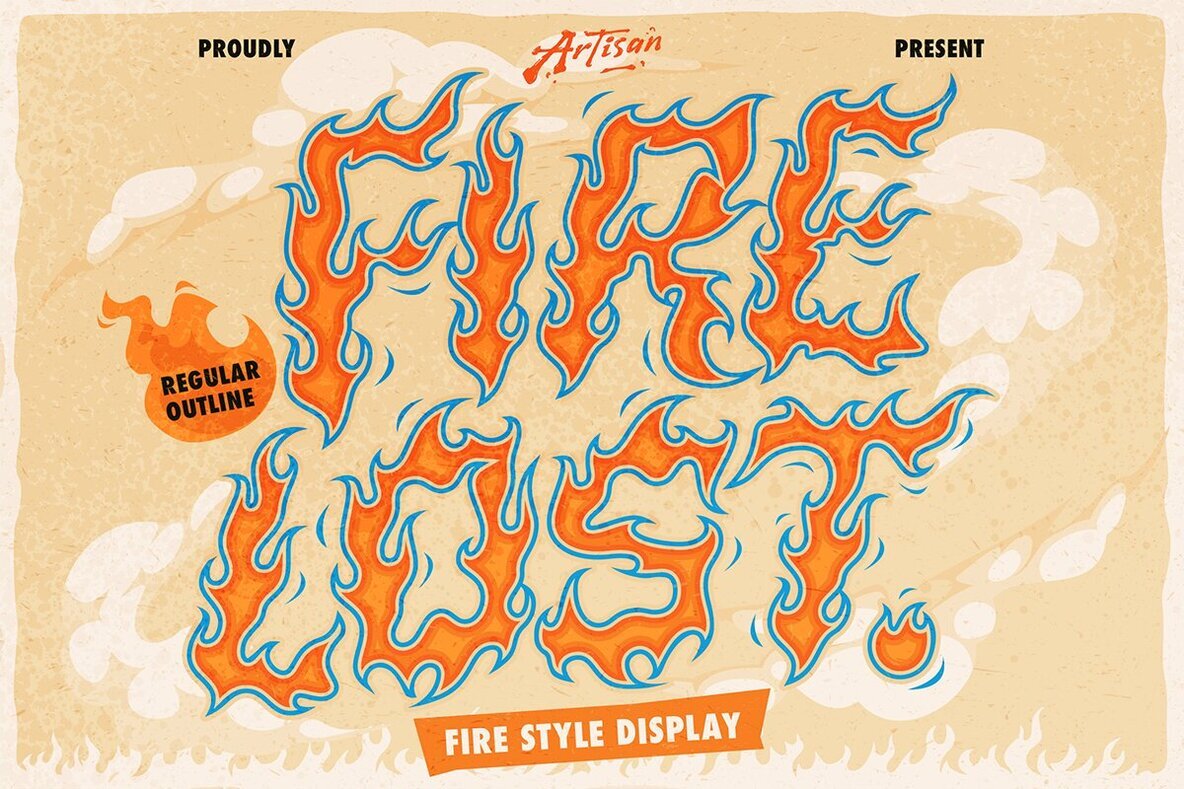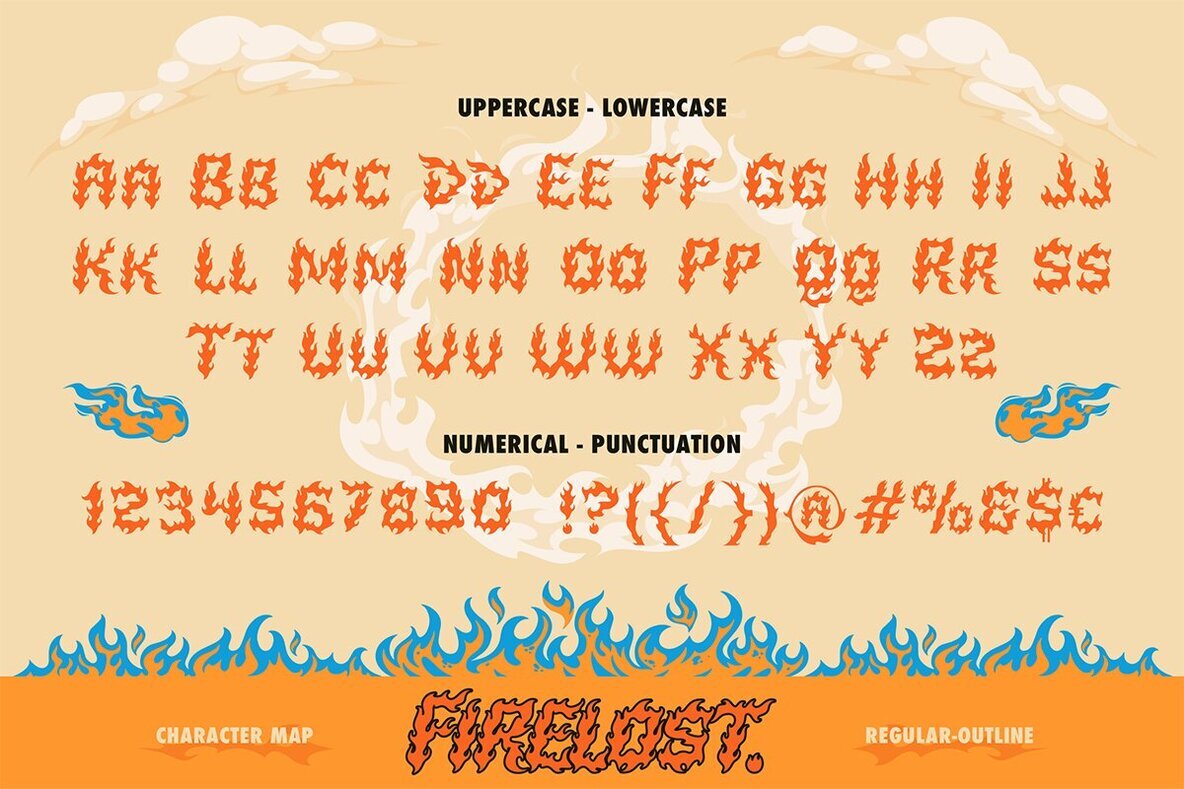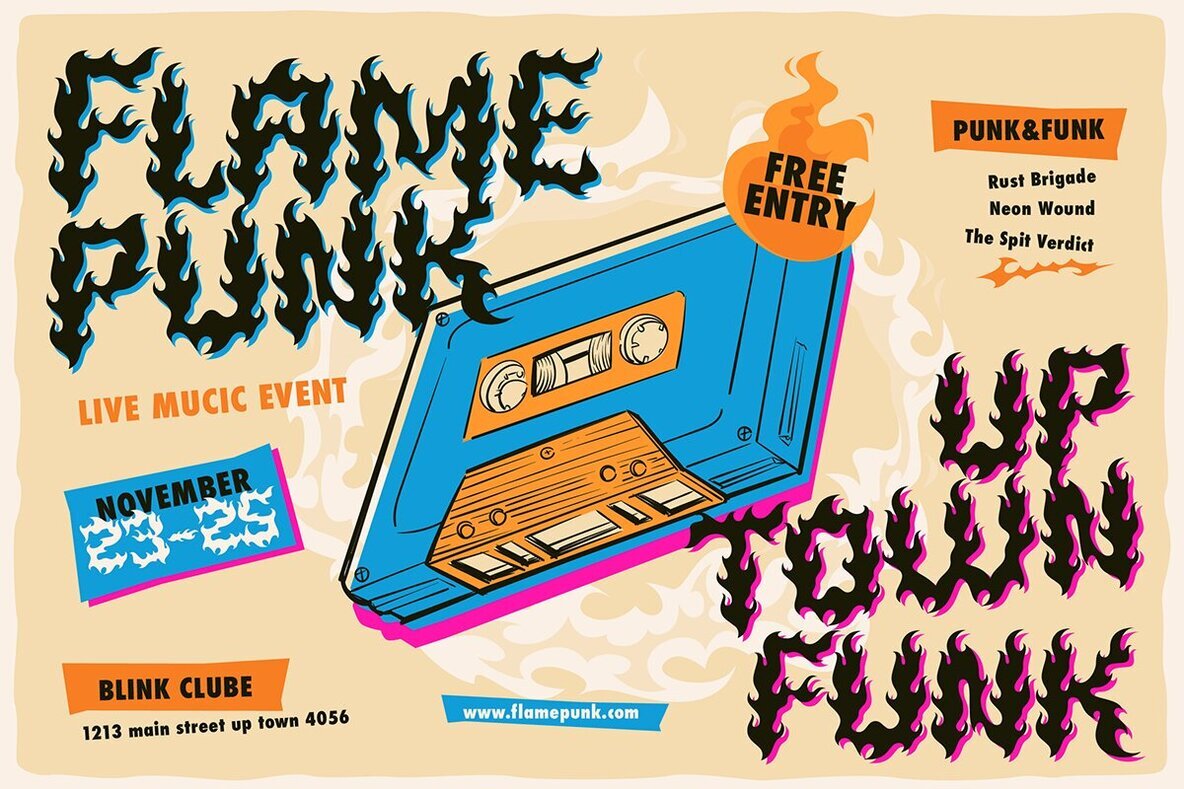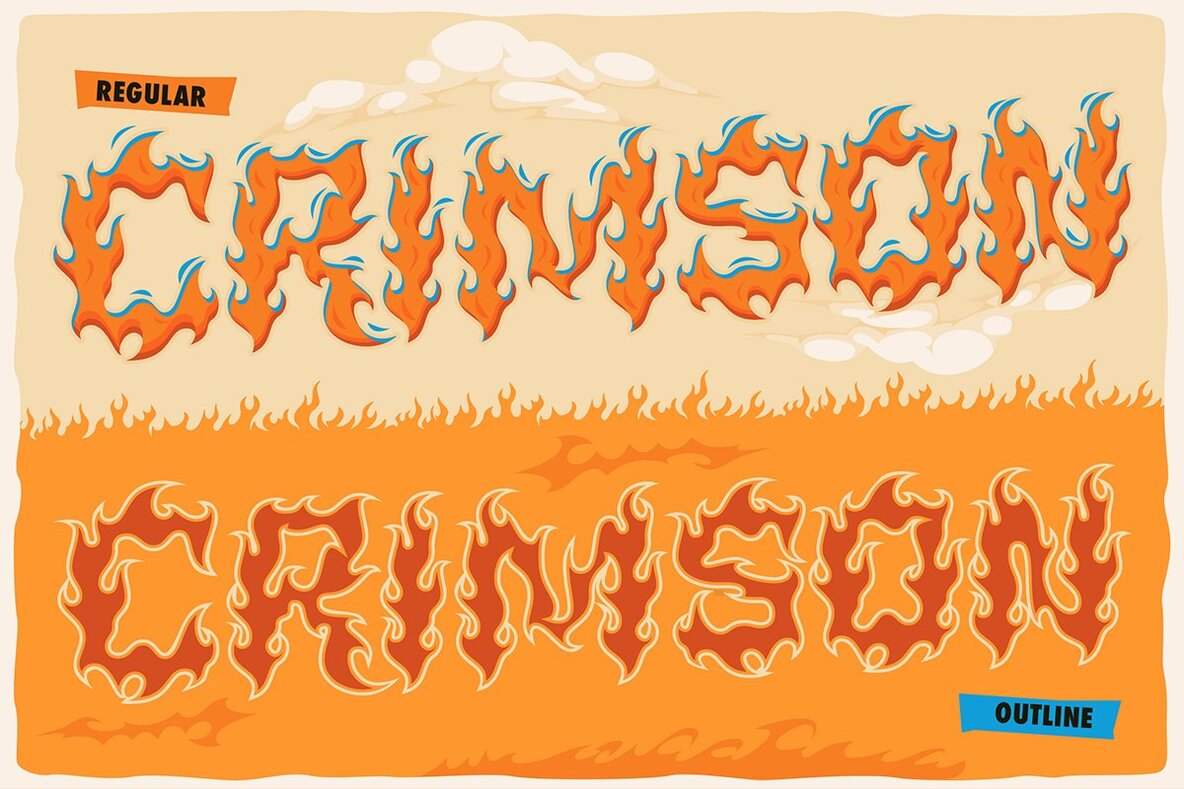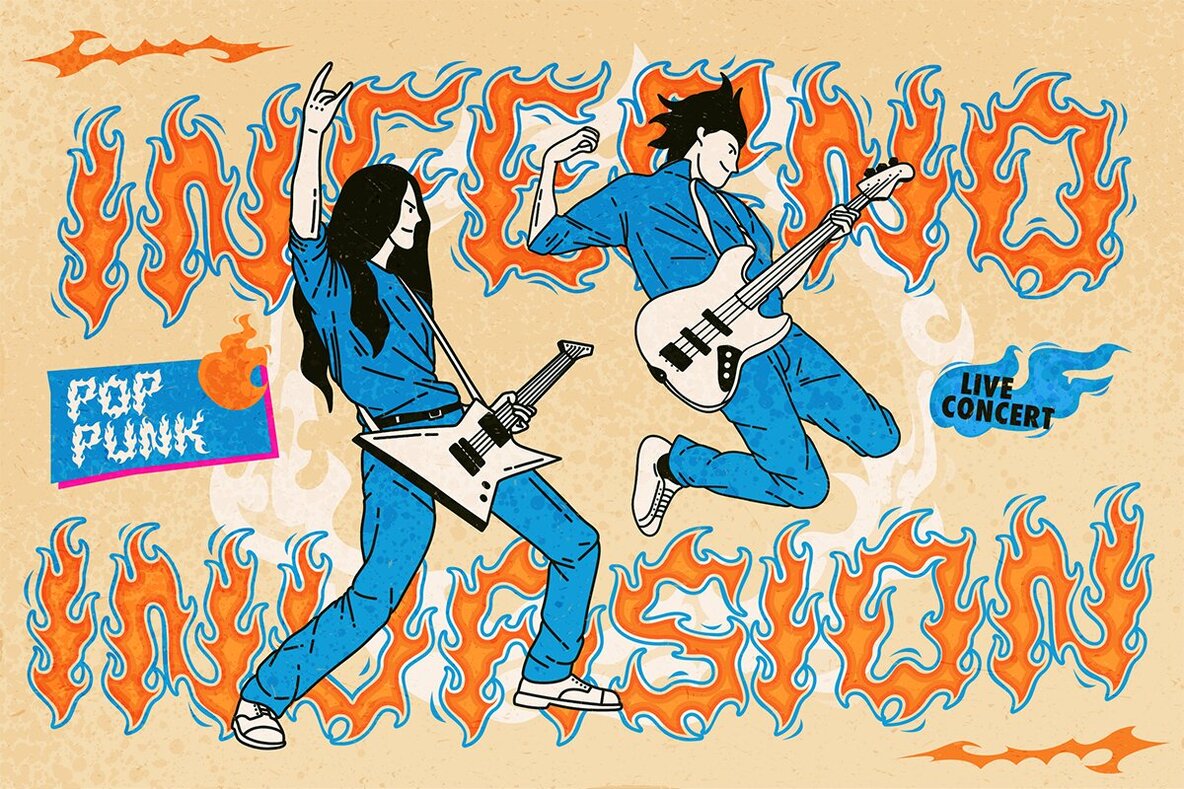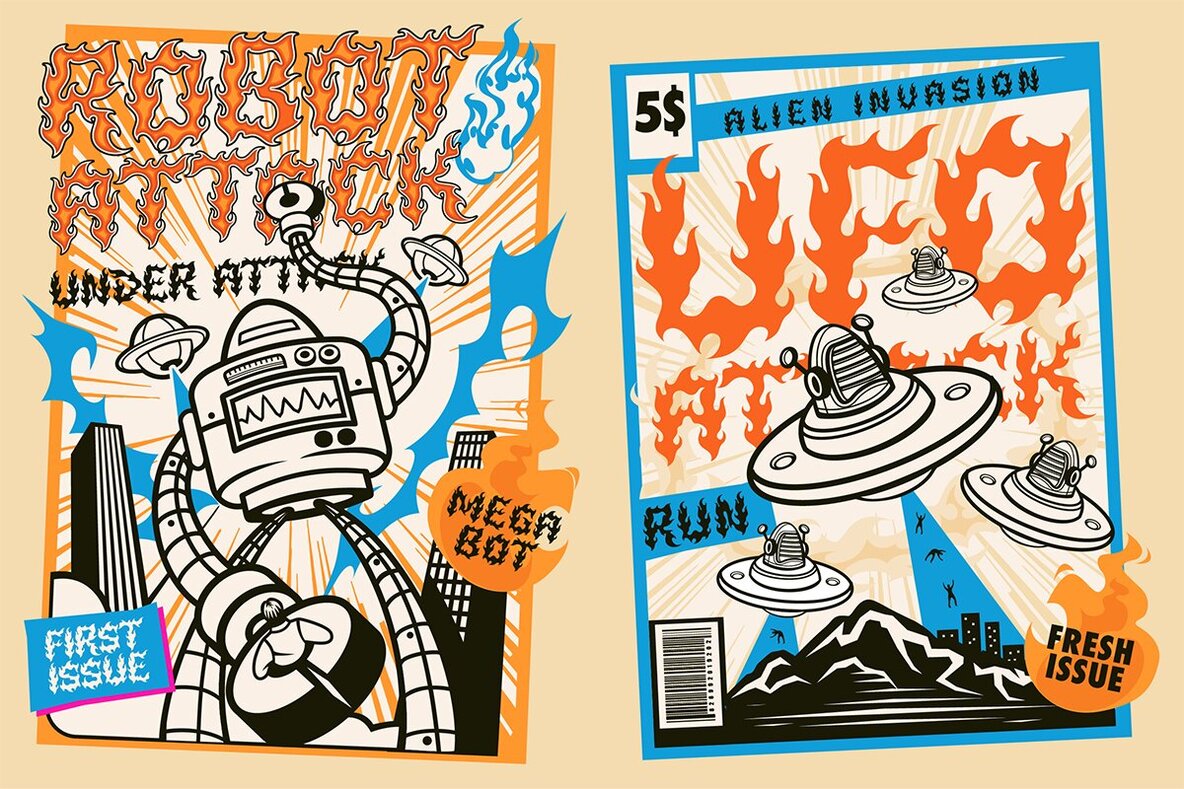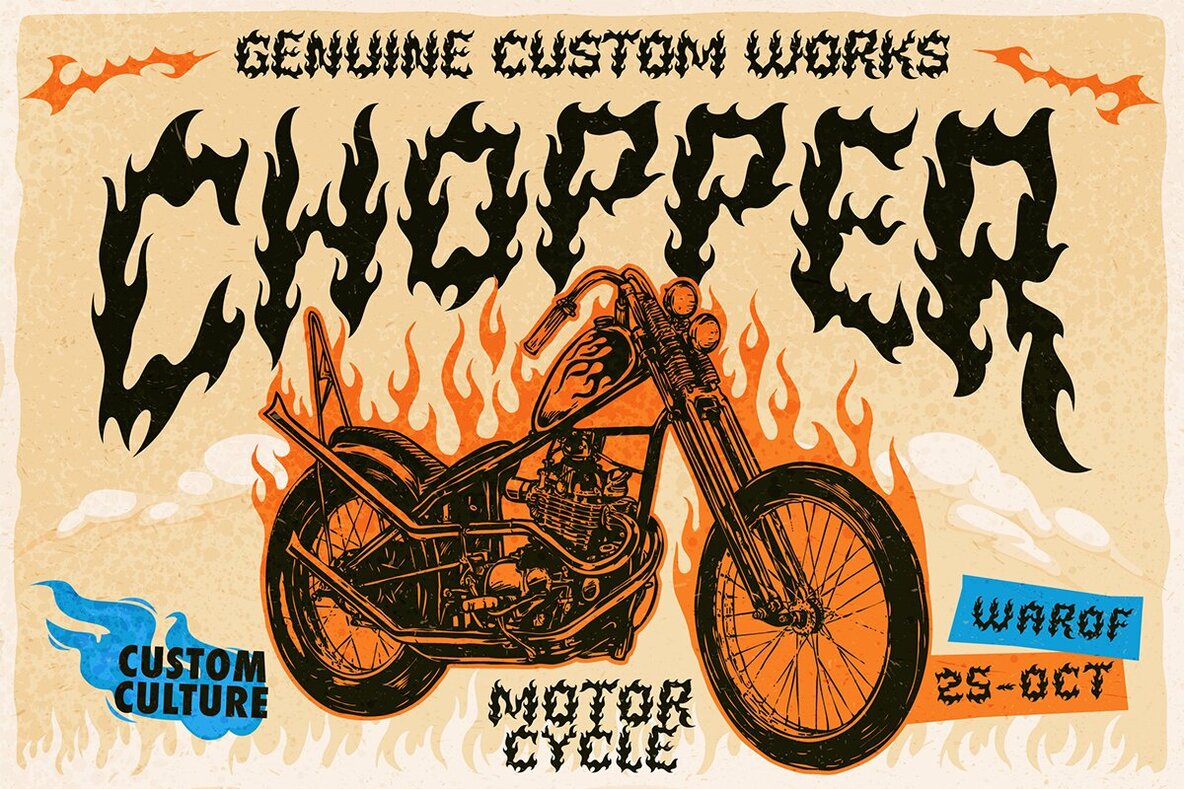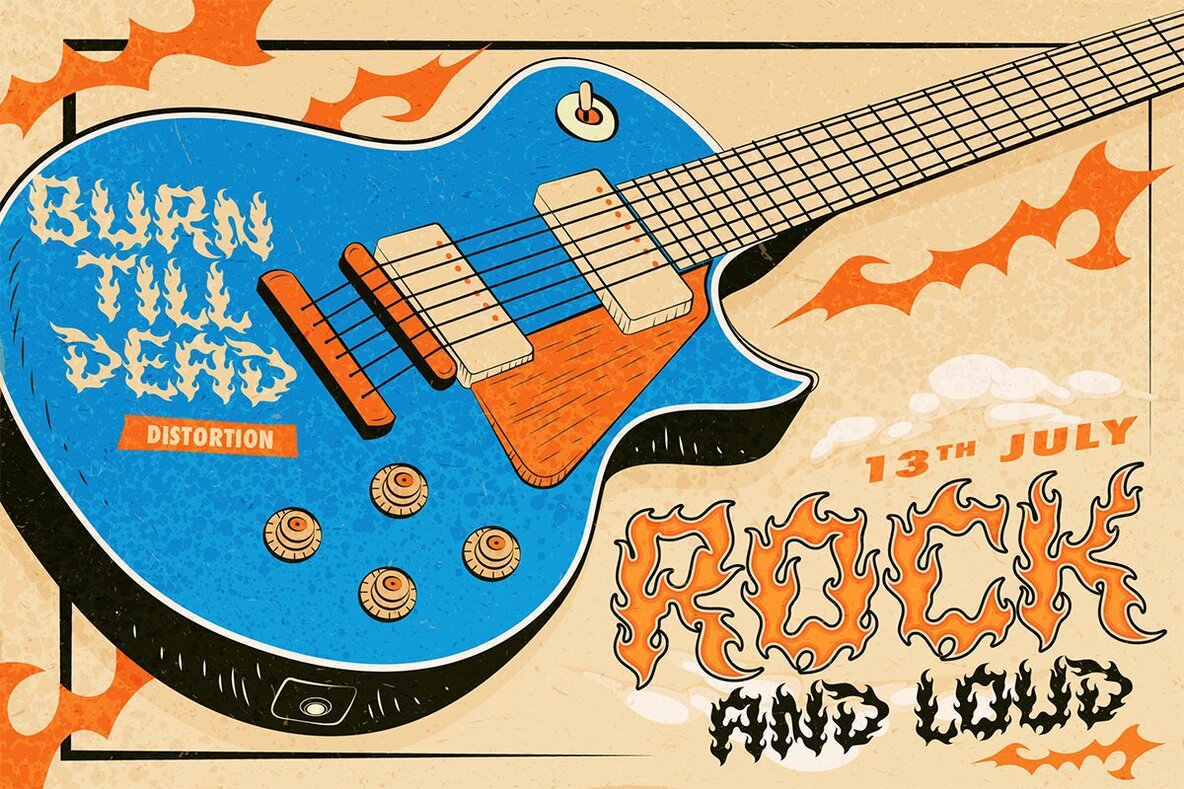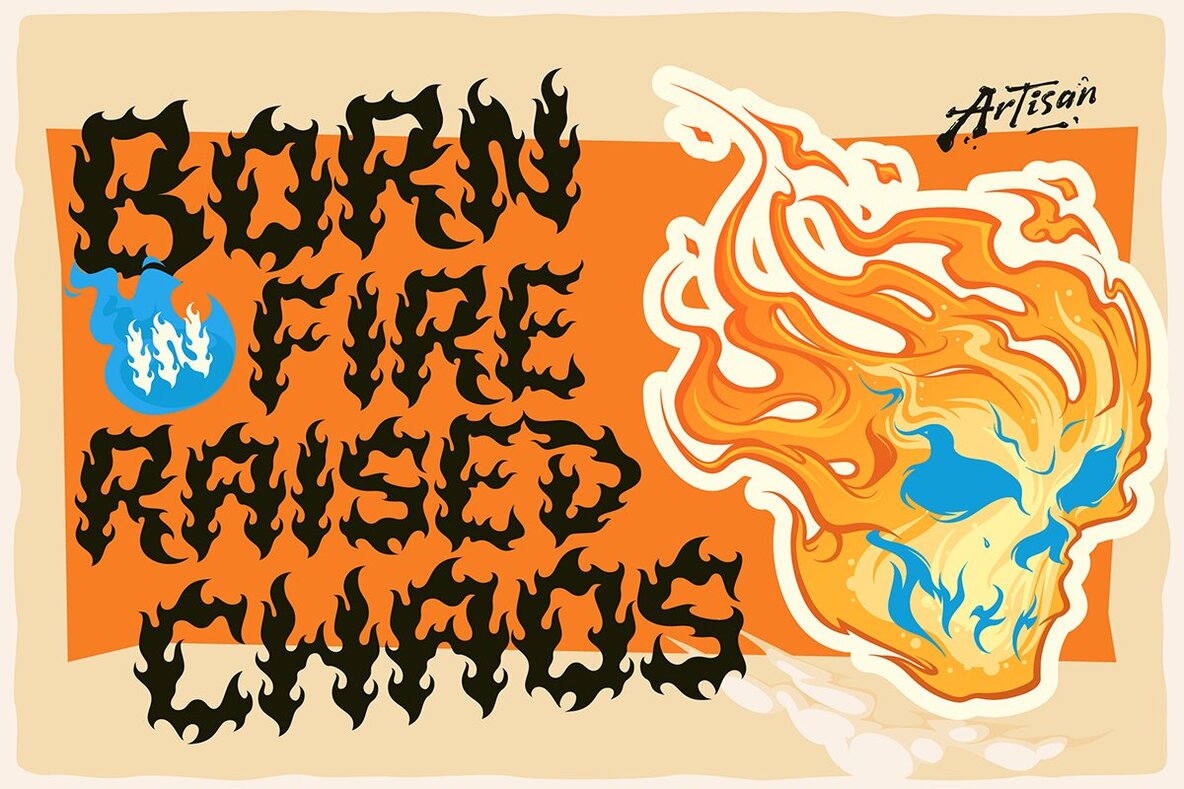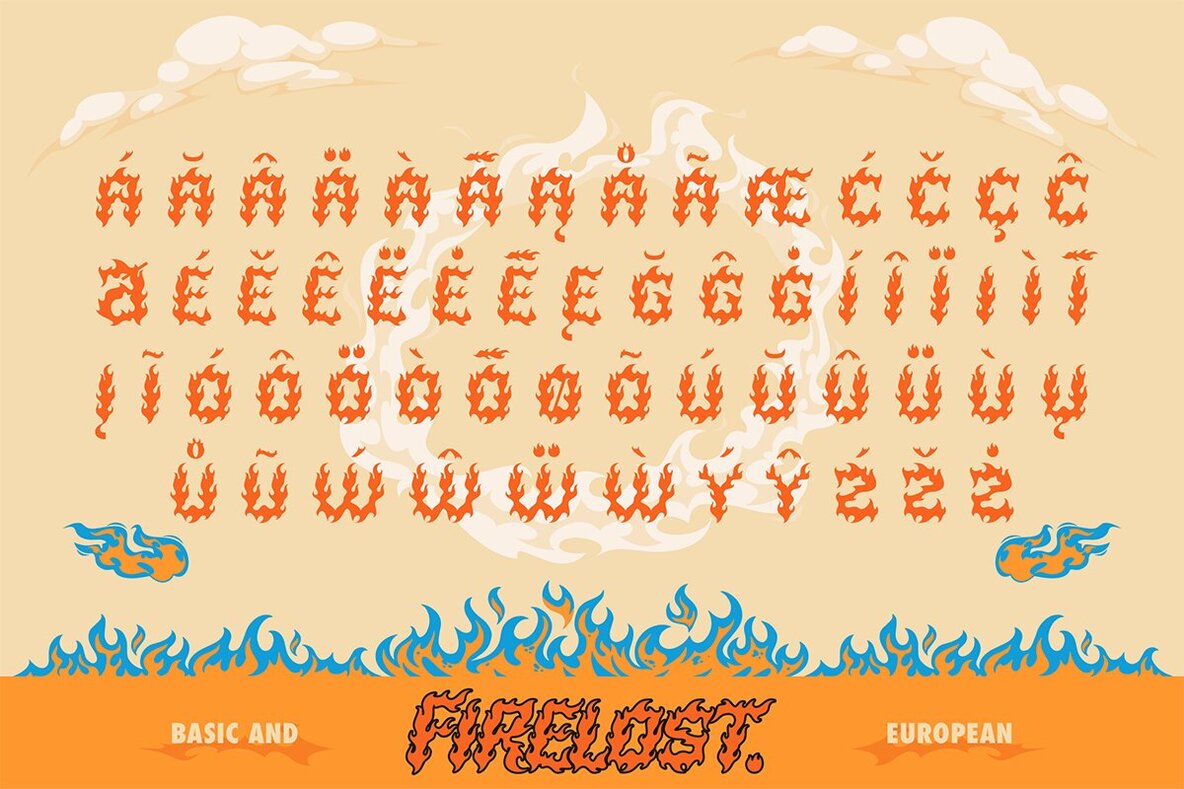
Firelost Font
Firelost Regular
Firelost Outline
Fire Lost delivers a dynamic aesthetic for projects that demand presence. This display font channels the raw energy of rock posters and vintage comics. Its bold letterforms and expressive detail are designed for headlines that captivate across music, sports, and streetwear visuals. Fire Lost is available in both Regular and Outline styles, giving designers room to experiment with layered effects and striking contrast. The typeface commands attention, lending an unmistakable voice to work that seeks to make a visual statement.Fire Lost: A Distinct Display Font for Impactful Design